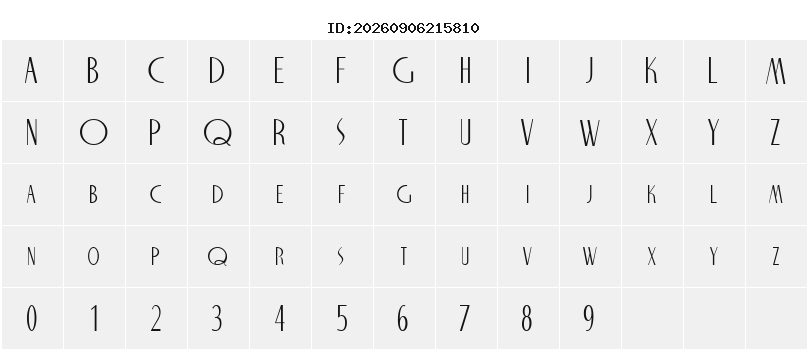
Uptown Diner Preview
• Font Name: Uptown Diner
• Full Font Name: Uptown Diner Regular
About Uptown Diner.ttf
Uptown Diner.ttf is a modern, elegant sans-serif font designed for ultimate readability and visual harmony. Perfect for branding, headlines, web design, and print materials.